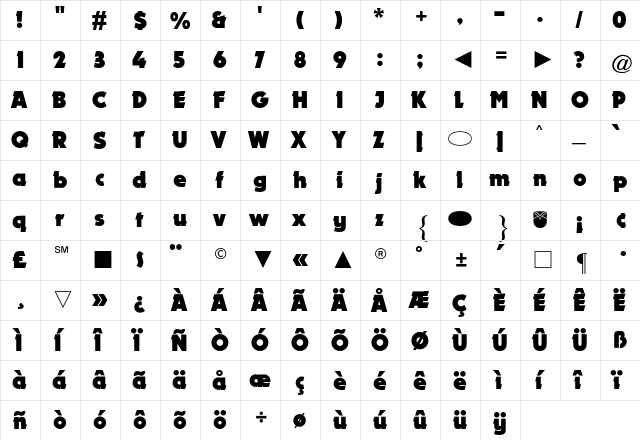
Cg Dynamo Regular
| Foundry | Agfa Corporation |
Design Context for Cg Dynamo Typeface
Cg Dynamo takes a measured approach to typography — its balanced proportions and neutral character make it a reliable workhorse for both digital and print work.
Pro Tip: Use Cg Dynamo in both headline and body roles to test its range before committing to a single application.